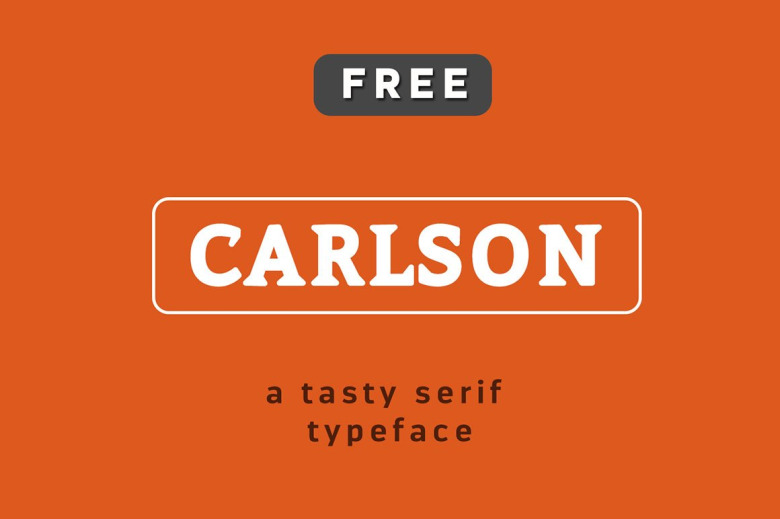
Carlson Font
Carlson is a high quality Serif font that is designed by Ryan Anthony and is available for free download and personal use. The free version provides all uppercase and lowercase letters and a few special characters too.
Carlson Serif Font